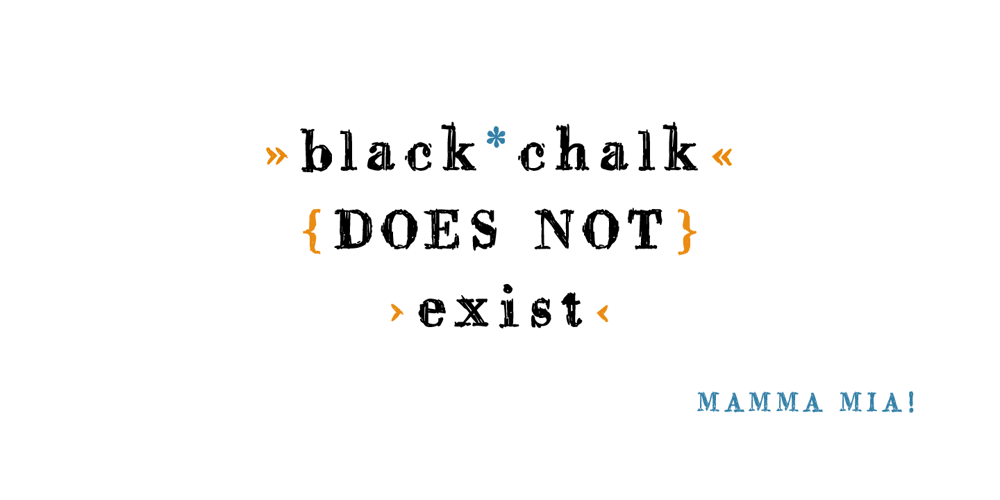
M8T Mamma Mia
M8T Mamma Mia font
M8T Mamma Mia Font Family was designed by published by moon8ype. M8T Mamma Mia contains 1 styles and family package options. The bigger the better! M8T Mamma Mia is a broken Bodoni inspired serif font whose each character has been handdrawn. Hundreds of strokes build this rough, yet soft font. It is perfect for titles, especially in large scales. Using it on chalkboard backgrounds you will realize the inspiration of chalk-board-writing.